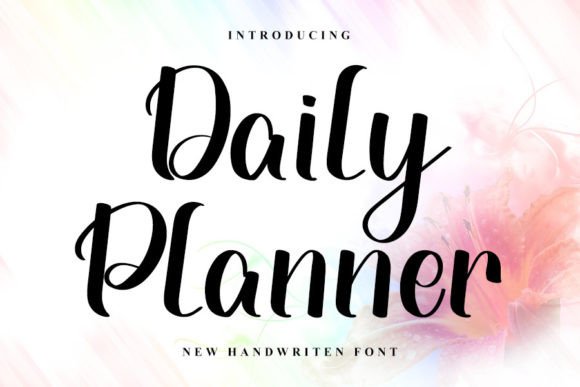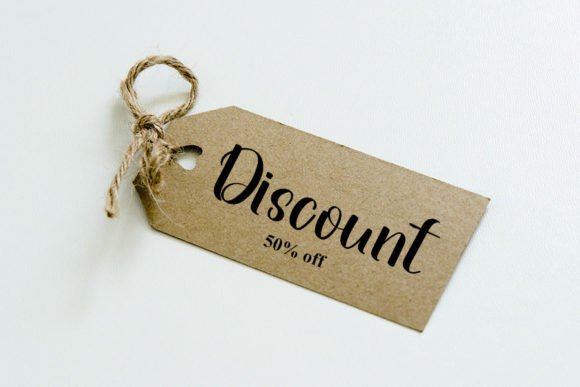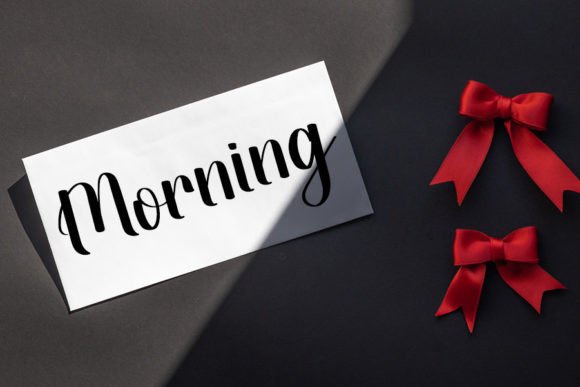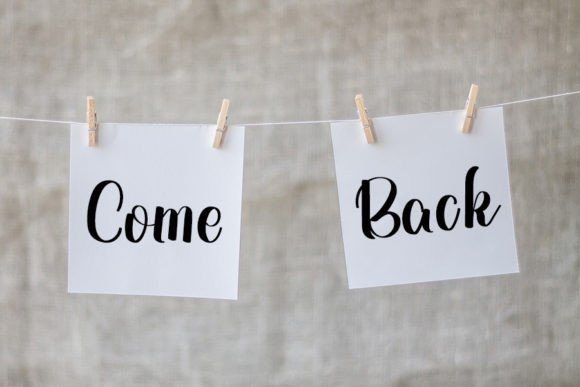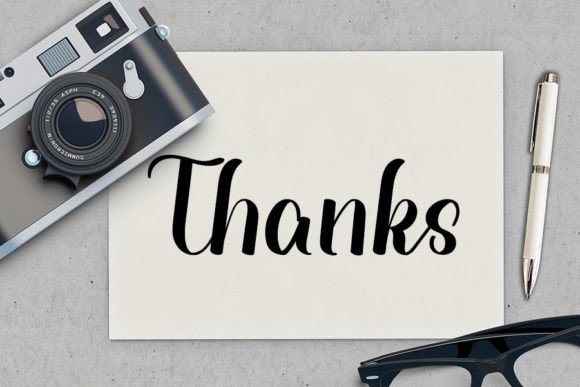
Daily Planner Font
About Daily Planner Font
“Daily Planner” is a meticulously crafted and beautiful handwritten font, distinguished by its neat and elegant touch, making it the perfect choice for your favorite projects. Immerse yourself in the allure of its incredibly distinct and timeless style, allowing it to be the driving force behind the creation of spectacular designs that capture attention and inspire.
The clean lines and refined strokes of “Daily Planner” bring a sense of order and sophistication to your text, making it versatile for various creative endeavors. Its elegant touch ensures that your projects exude a polished aesthetic, whether you’re working on planners, journals, branding, or any design that requires a tasteful and graceful appearance.
Beyond being just a font, “Daily Planner” is a design asset that evokes admiration. Its timeless style ensures that your creations stand out with enduring appeal. Fall in love with the font’s charm and consider it a dependable element in your design toolkit, ready to add a touch of class to any project.
Whether you’re creating daily planners, stationery, or promotional materials, “Daily Planner” lends a touch of sophistication that elevates your designs. The font’s distinctive style allows it to seamlessly integrate with various themes and purposes, providing a versatile solution for your creative needs.
In summary, “Daily Planner” is a font that effortlessly combines neatness with beauty, and its handwritten elegance makes it a standout choice for your favorite projects. Let its distinct and timeless style inspire your design endeavors, ensuring that your creations not only catch the eye but also possess a refined and enduring quality that sets them apart in any context.